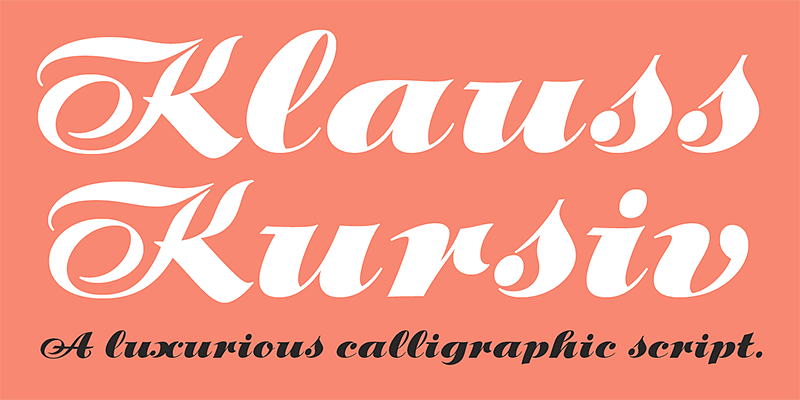
P22 Klauss Kursiv
P22 Klauss Kursiv is the first ever digital revival and expansion of the last face Karl Klauß designed for the Genzsch & Heyse foundry in Stuttgart before he died in 1956.